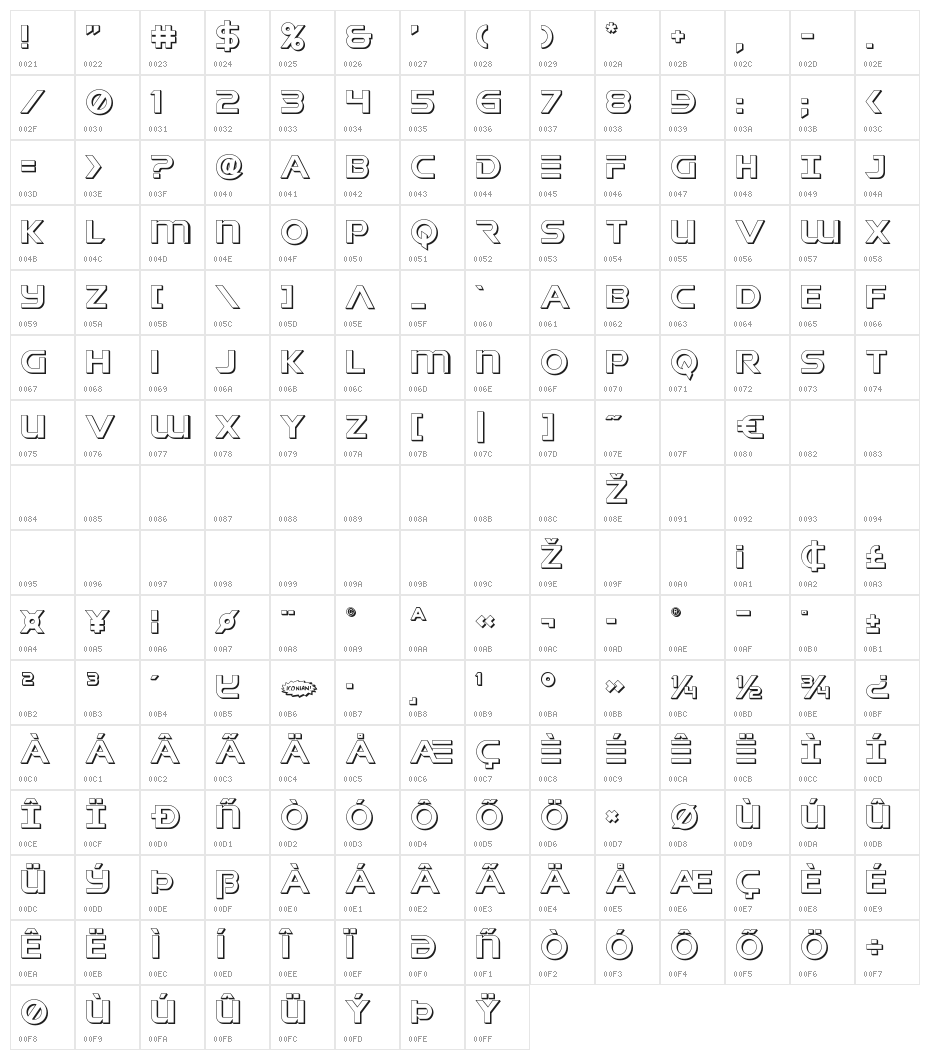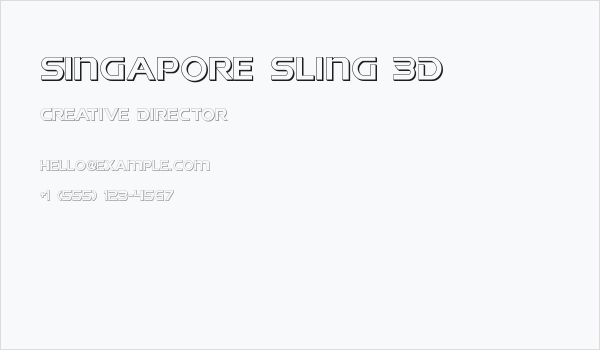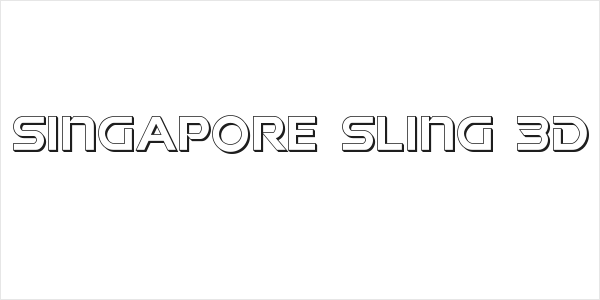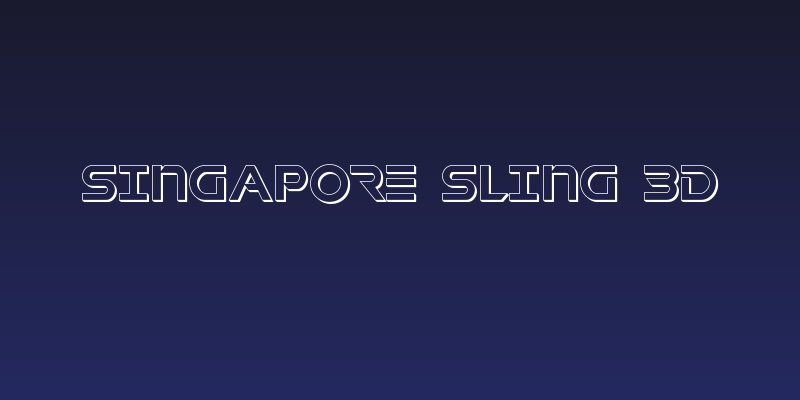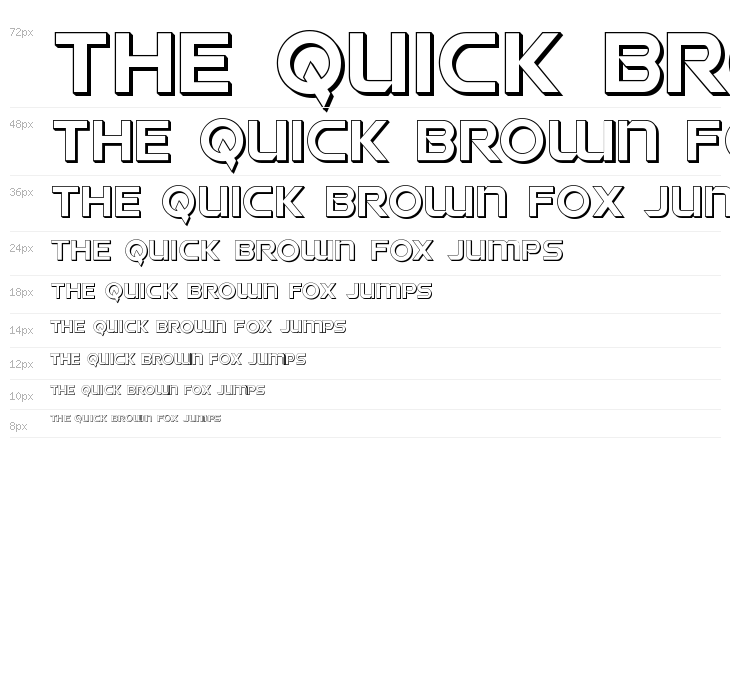
Singapore Sling 3D Font
Singapore Sling 3D Description
This font features a bold, geometric design with a three-dimensional effect that gives it a futuristic and dynamic appearance. The characters are outlined with a double line, creating a sense of depth and shadow. The uppercase and lowercase letters maintain a consistent style, with sharp angles and clean lines that contribute to its modern aesthetic. The numerals and special characters follow the same design principles, ensuring uniformity across all glyphs. This font is particularly eye-catching and suitable for projects that require a strong visual impact.
| Proposed Projects | Ideal for branding, posters, video game titles, and any project needing a futuristic or tech-inspired look. |